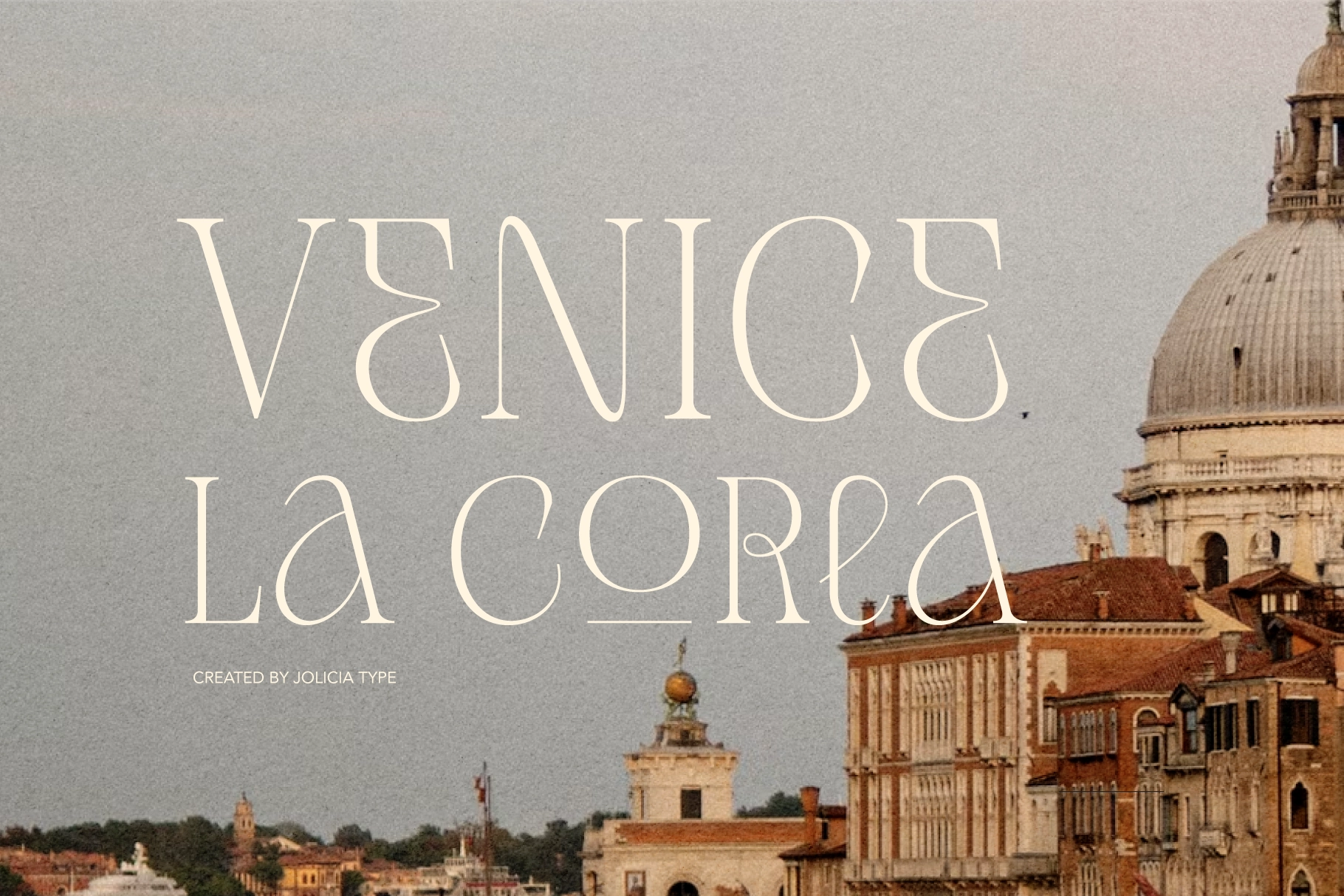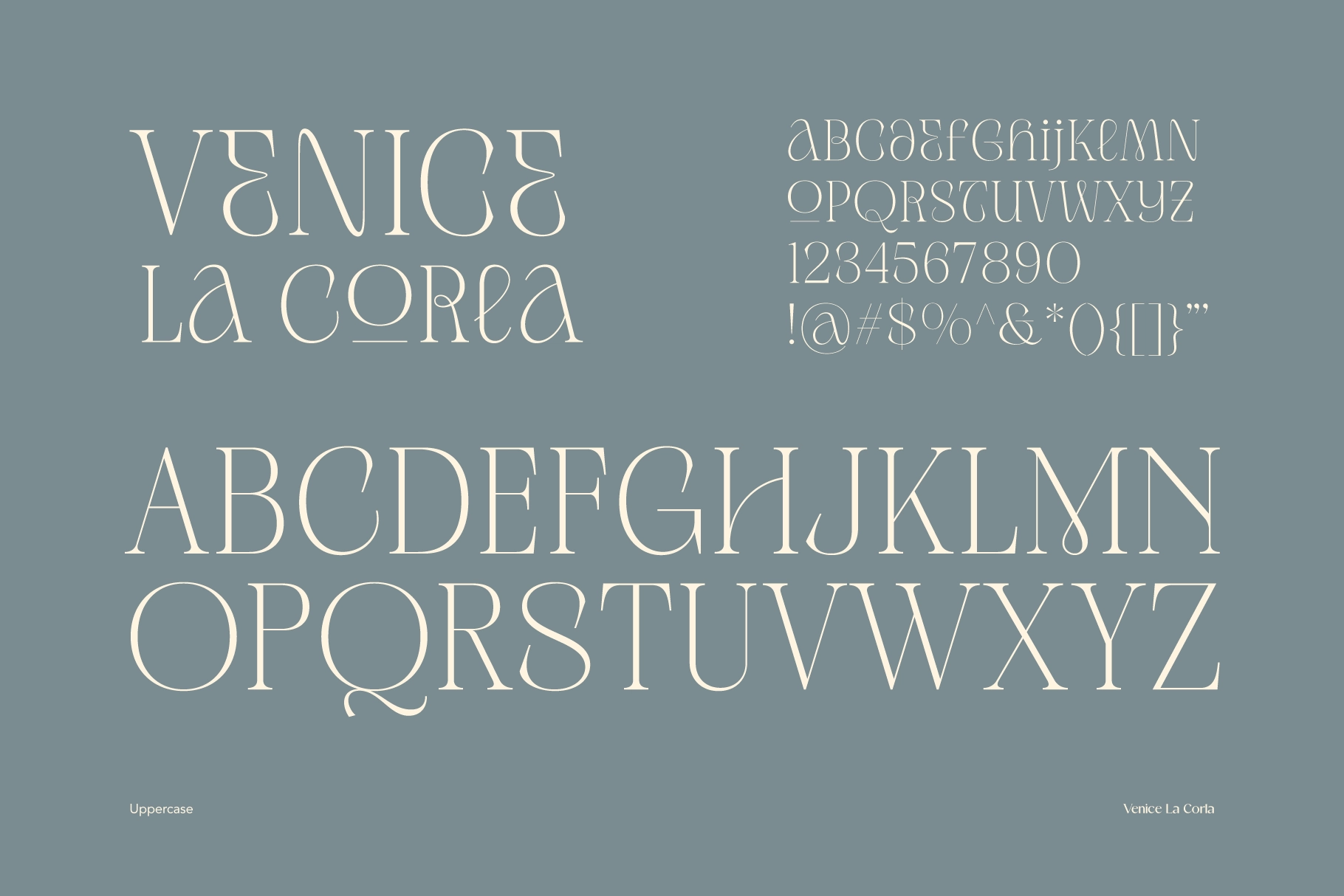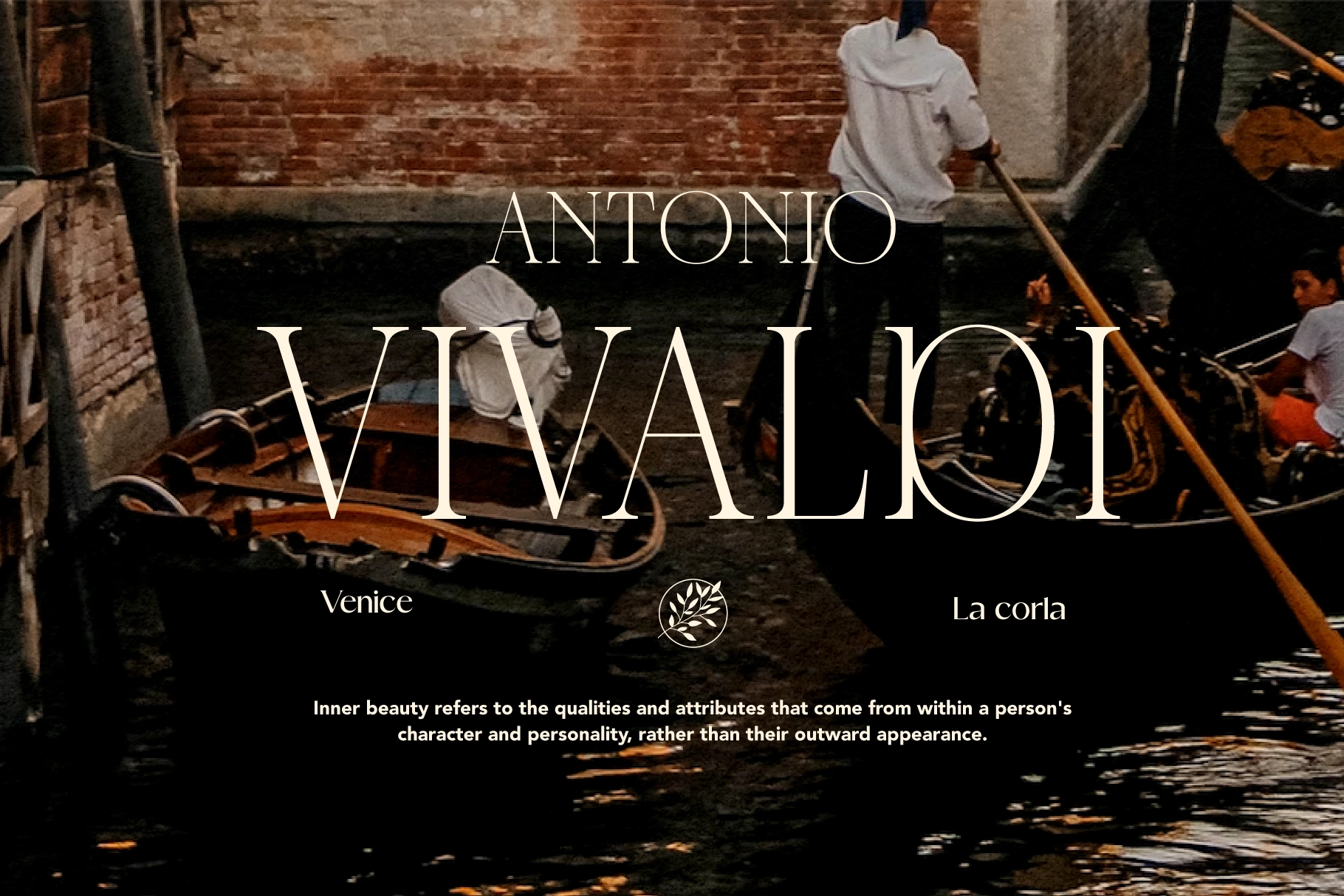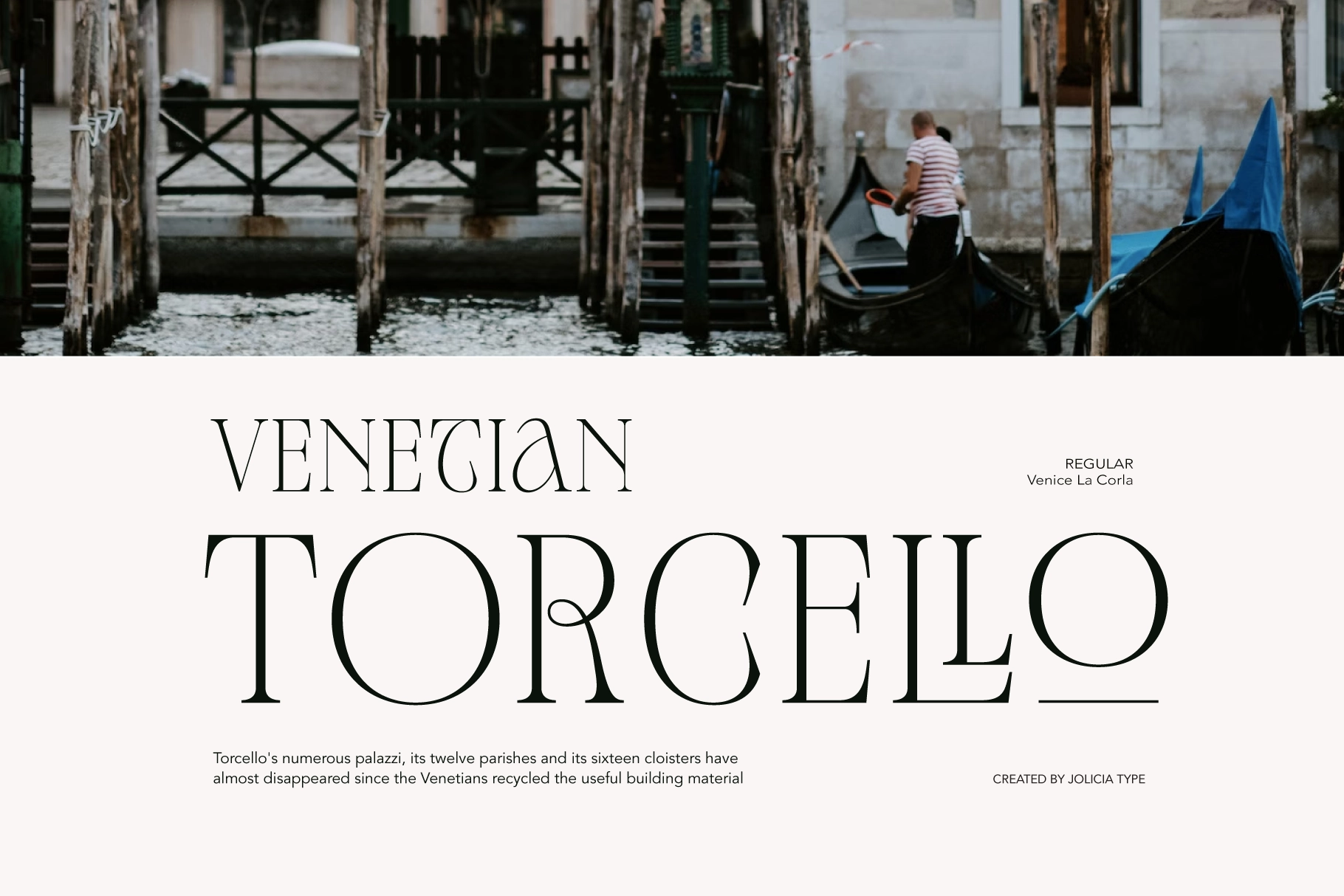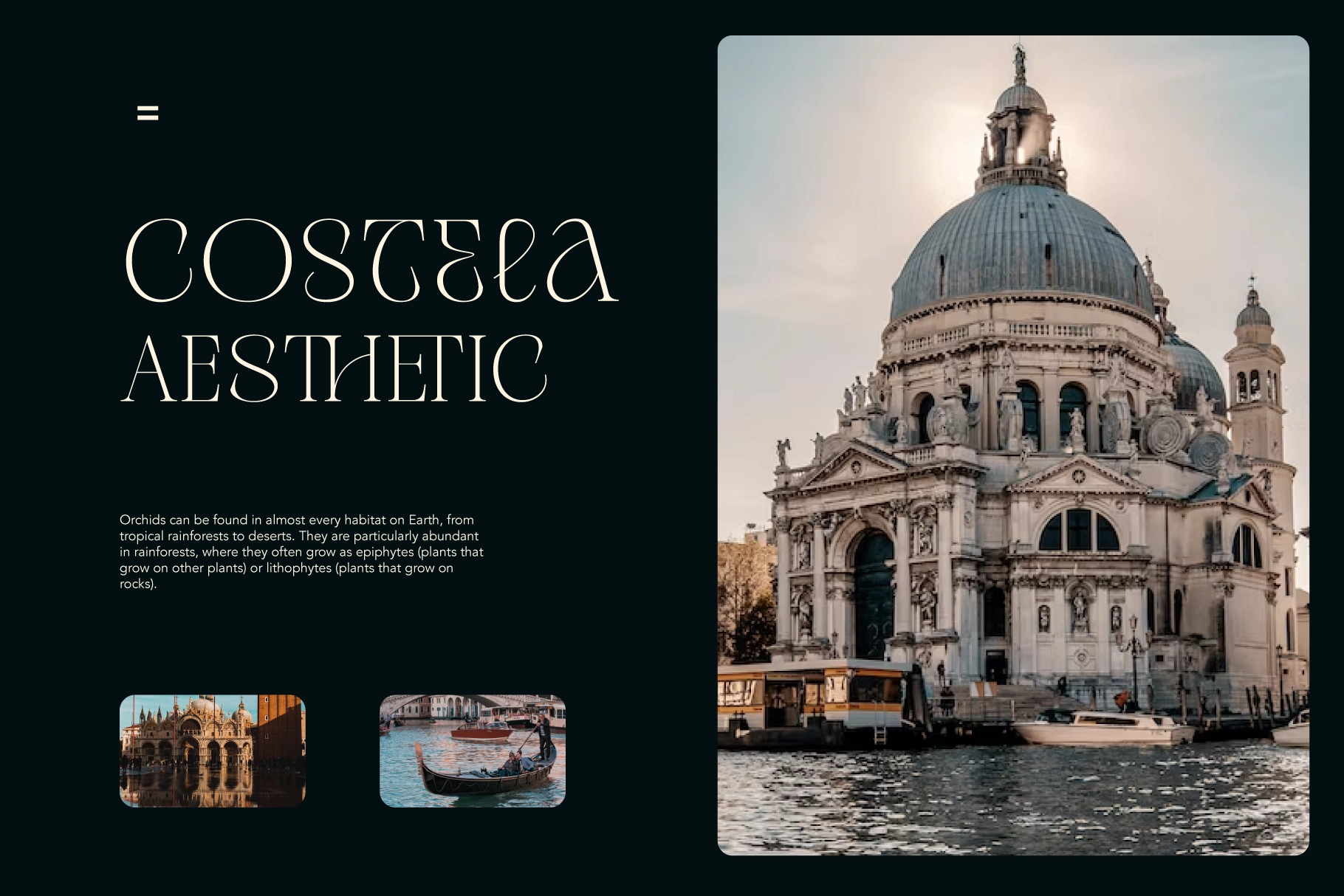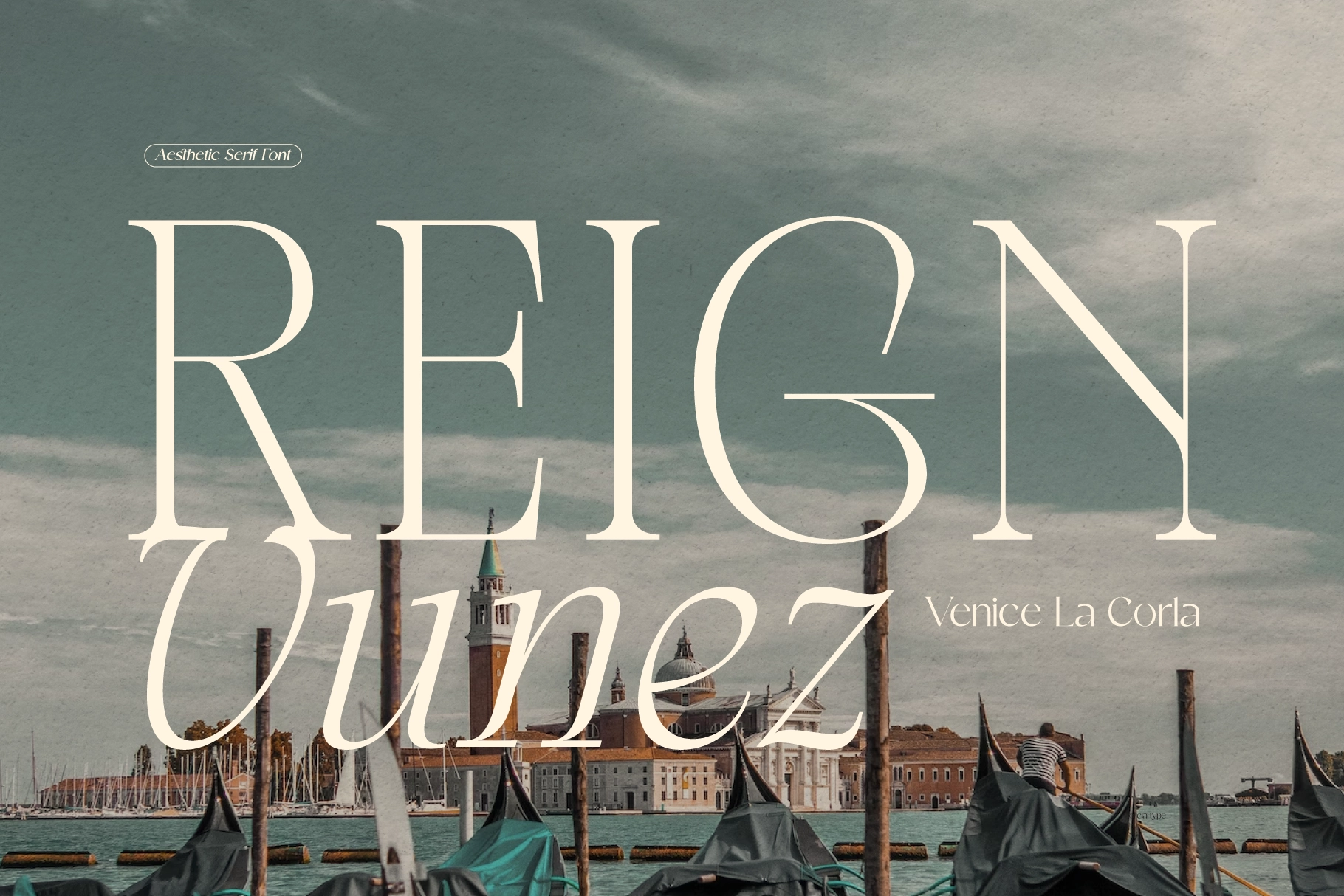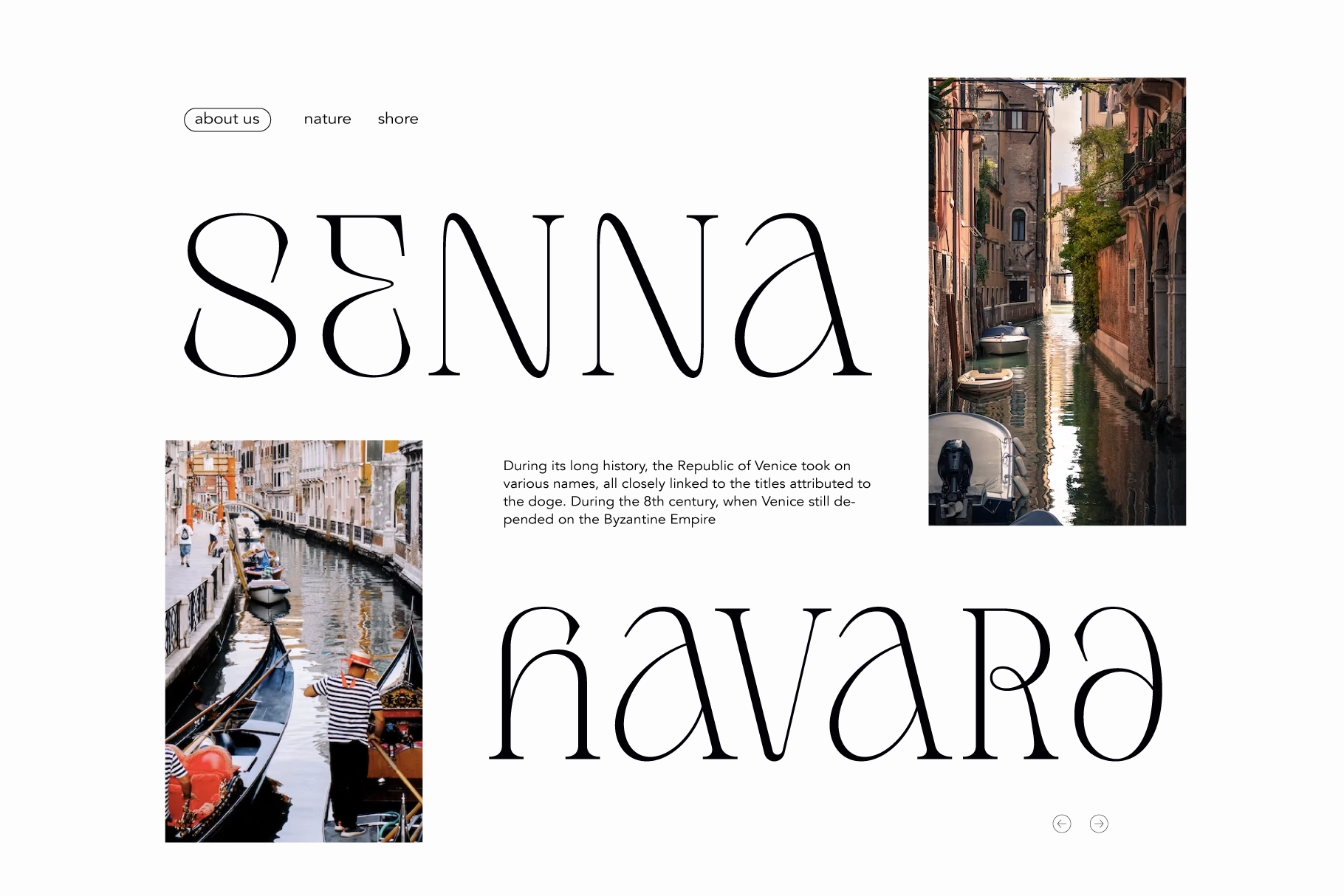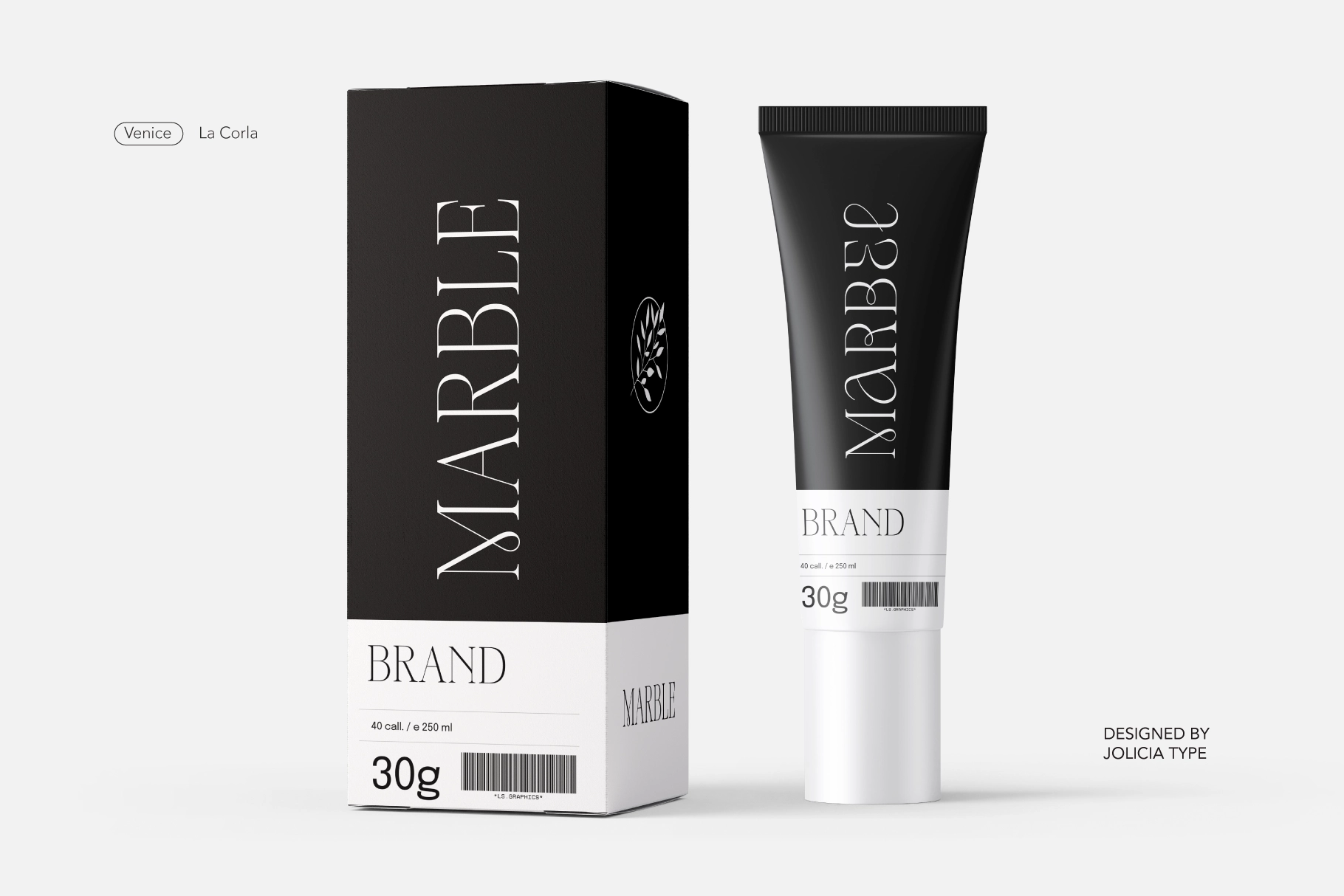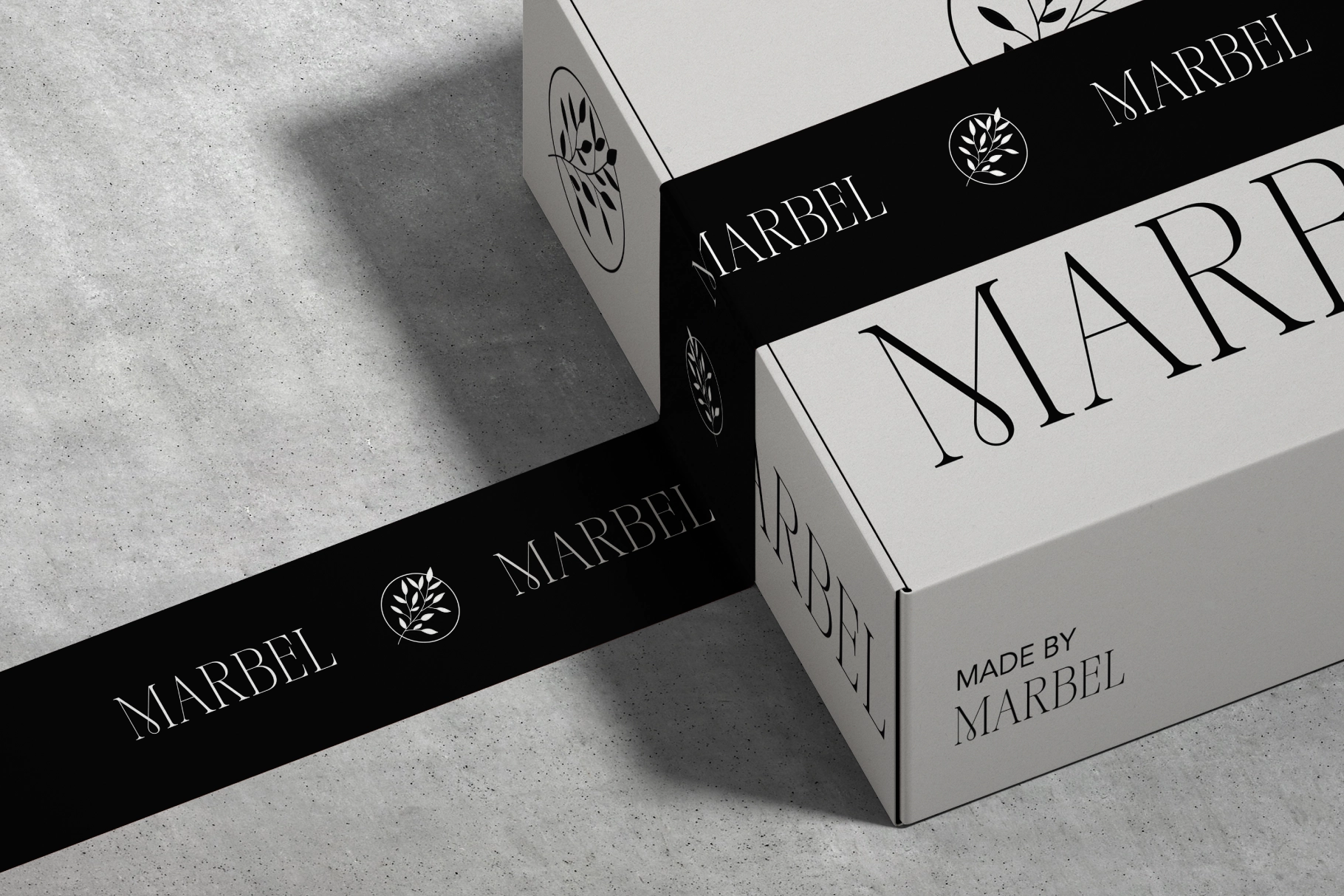
Venice La Corla - Elegant Fashion Serif Font
Venice La Corla
This elegant serif is all long stems, sculpted curves, and high-contrast letterforms with a distinctly Venetian appetite for drama. The shapes have a couture-like rhythm: sharp in the details, graceful in the spacing, and expressive without turning every word into opera.
Use it for fashion branding, boutique logos, wedding invitations, editorial headlines, perfume packaging, restaurant menus, wine labels, art books, travel posters, luxury stationery, lookbooks, magazine covers, and social media campaigns for brands with taste and a passport. Venice works especially well when paired with restrained layouts, soft photography, and generous white space.